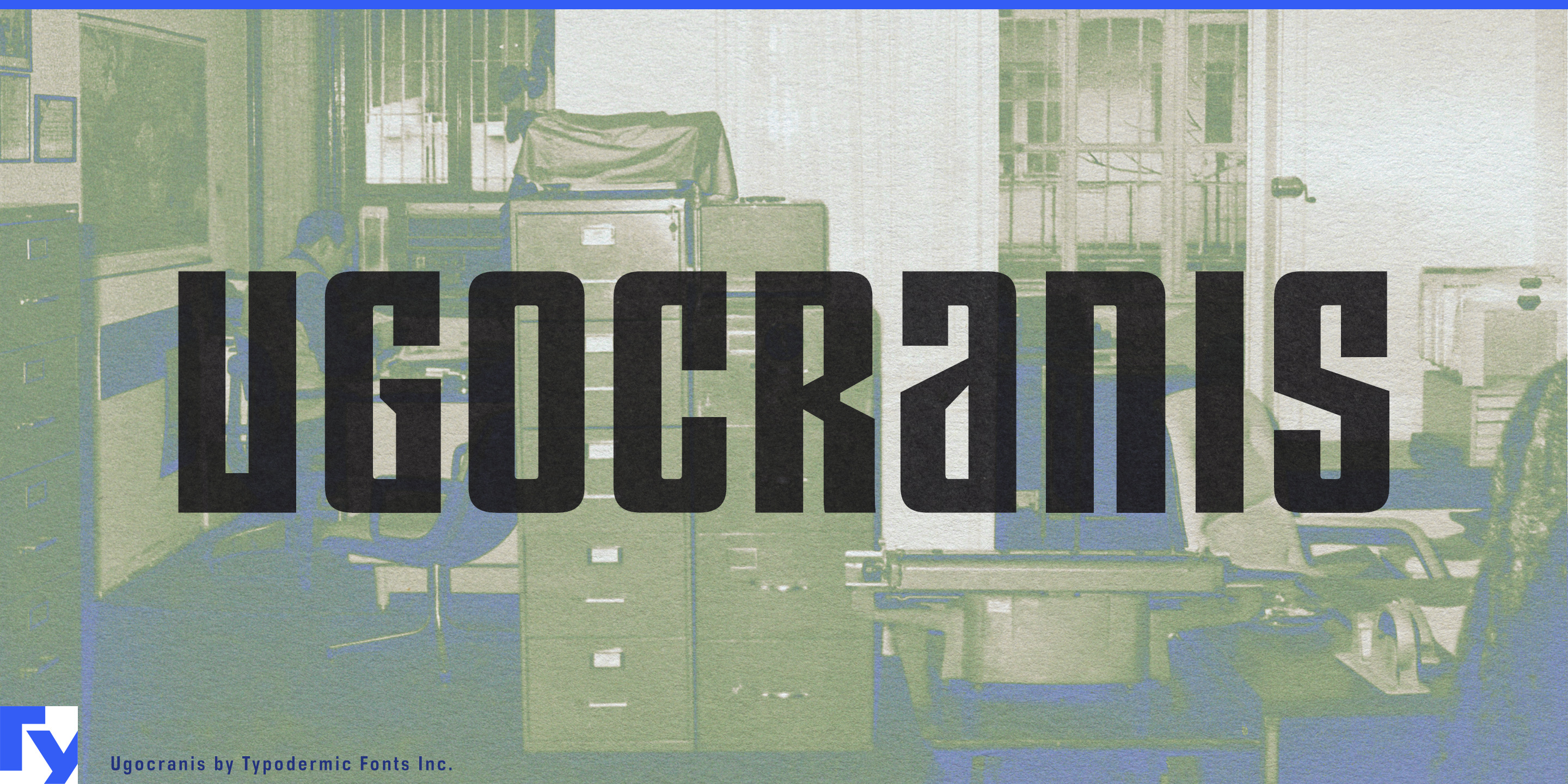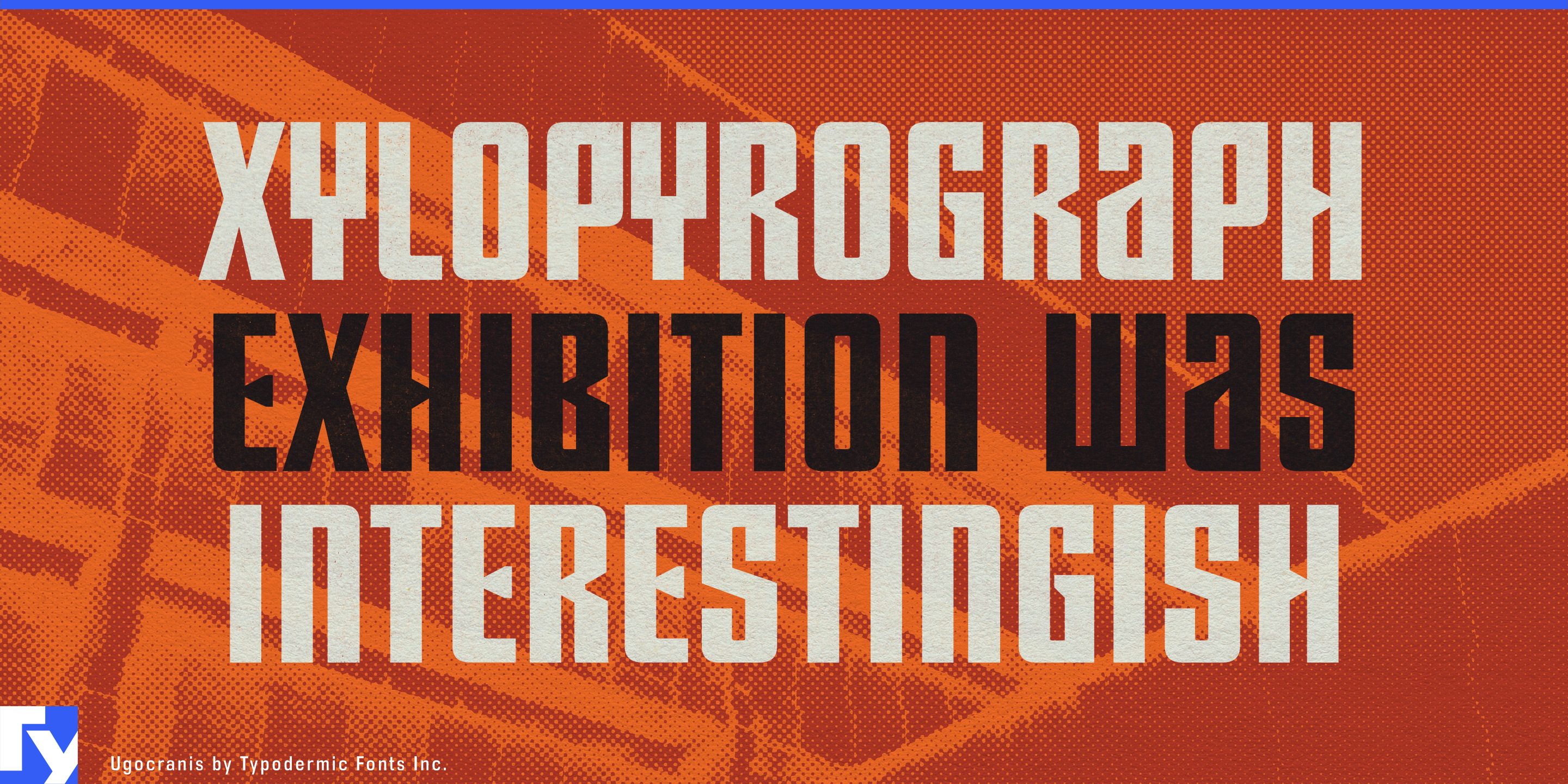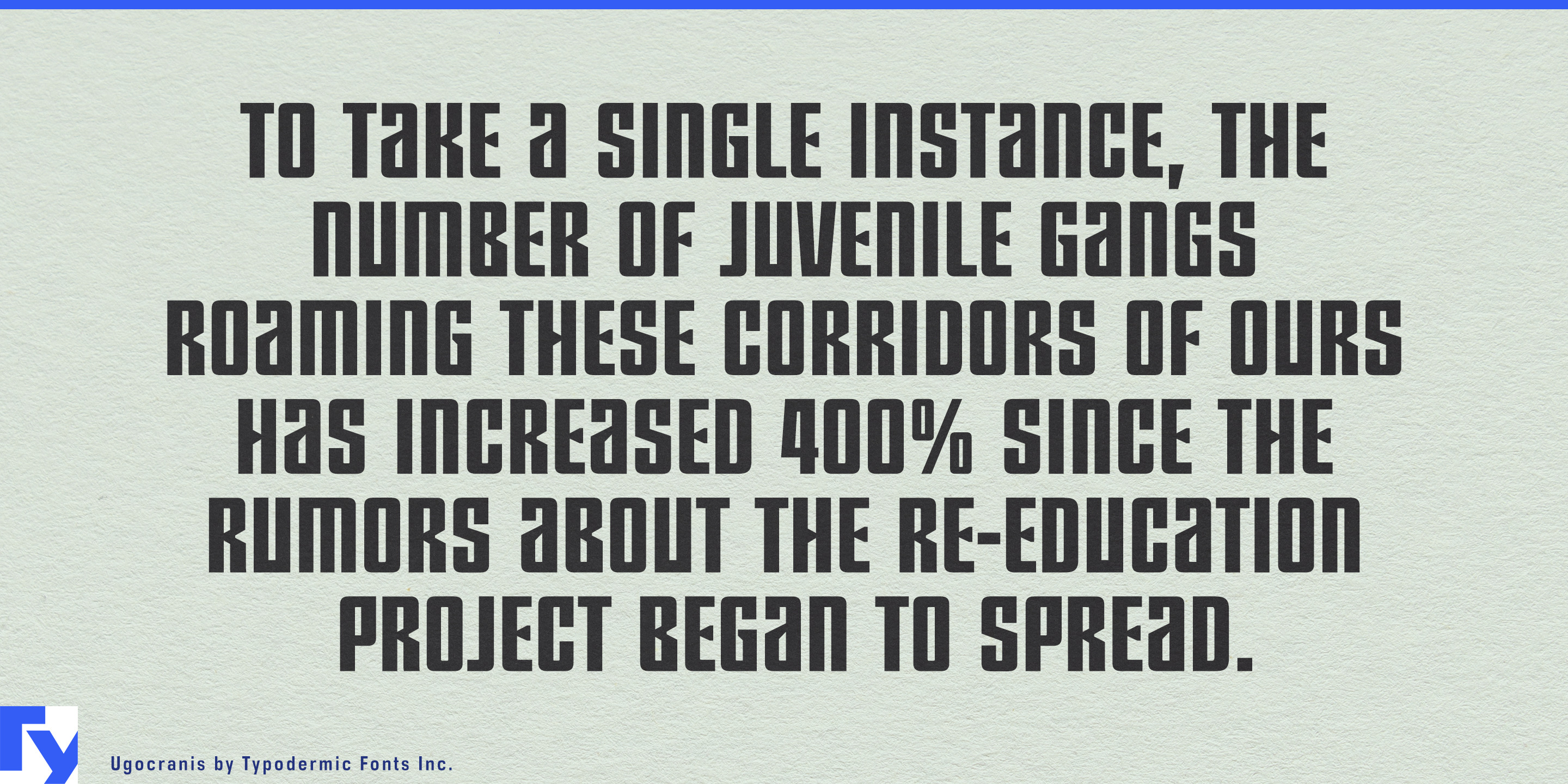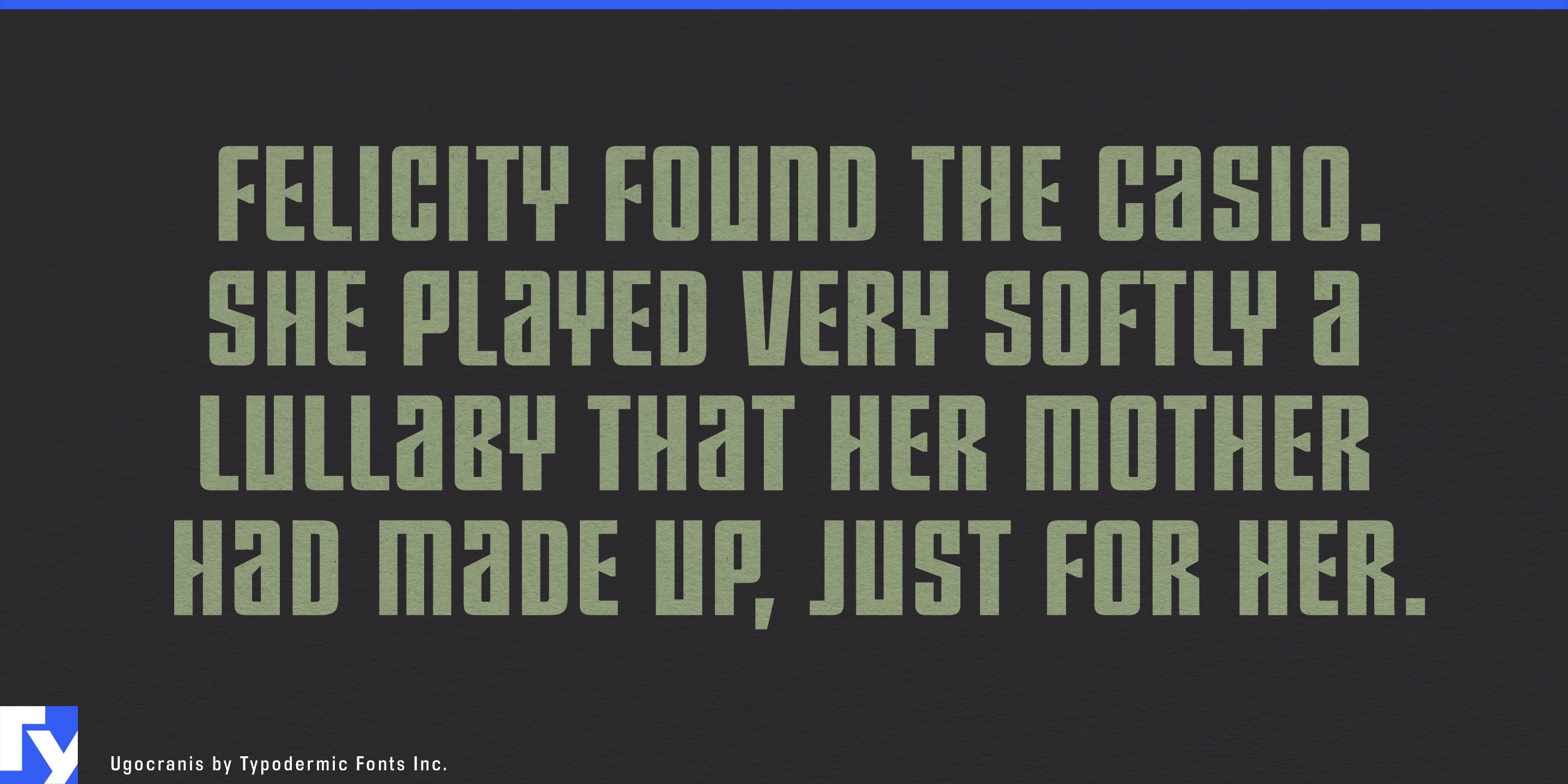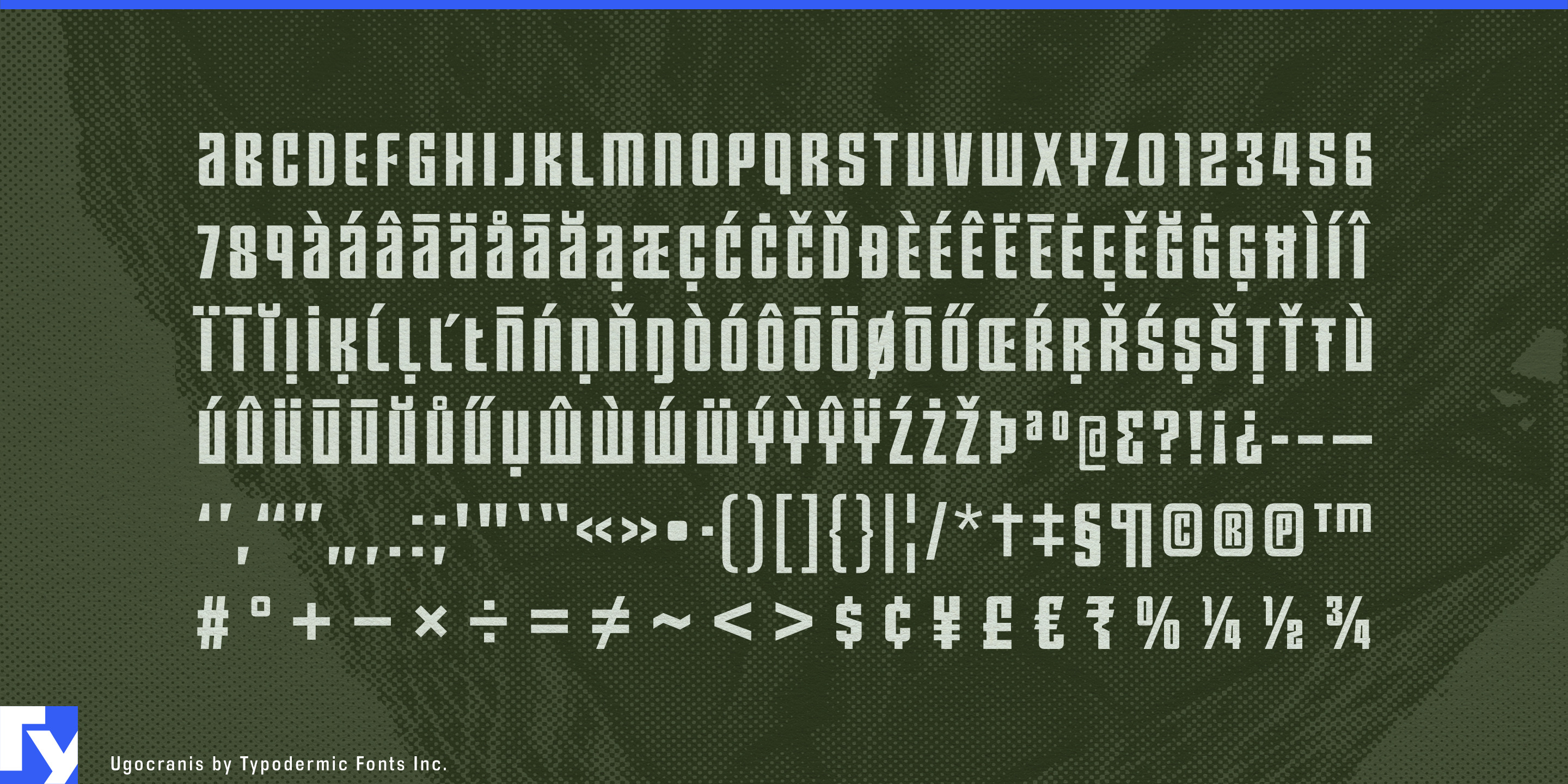
Ugocranis
Some projects do not need typography that promises excitement. A recycling plant, district-heating station, freight terminal, or municipal utility building may contain sophisticated technology, but sleek startup typography can feel strangely dishonest. Traditional industrial lettering creates a different problem: military stencils, heritage machinery, and rugged nostalgia can make new infrastructure look inherited from another era.
Ugocranis makes plainness intentional. Its narrow all-caps forms, uniform strokes, compact octagonal construction, and somber rhythm create a distinctly administrative kind of display lettering. There is enough geometry to keep it recognizable, but very little theatricality. It looks suited to organizations that operate facilities, process materials, move freight, and maintain systems rather than sell an imagined future.
Advanced recycling and material recovery are especially strong settings. Robotic sorting lines, battery-recovery plants, e-waste dismantling centers, critical-material processing, and automated recycling systems combine sophisticated technology with unapologetically industrial environments. Ugocranis can handle facility names, processing-zone headings, material-stream graphics, sorting-line identities, plant feature walls, and construction hoardings without making a recycling facility look like a consumer-electronics launch.
District heating and urban thermal infrastructure provide another natural fit. Large heat pumps, thermal-storage systems, energy centers, pumping stations, heat-exchanger facilities, and recovered-heat networks increasingly form part of city infrastructure. Ugocranis gives energy-center names, district-network projects, plant-wall lettering, public exhibition headings, and engineering graphics a civic, operational character.
Automated warehouses and freight terminals offer a similar environment at enormous scale. Fulfillment centers, cross-dock facilities, automated sorting halls, container terminals, and logistics campuses need names and zone headings that can occupy large industrial surfaces without turning every building into a technology showcase. Ugocranis suits loading-hall graphics, maintenance-area names, facility lettering, and distribution-center identities where the typography should feel systematic rather than promotional.
Public works broaden that role into water-reclamation plants, stormwater facilities, pumping stations, utility compounds, tunnel-service buildings, maintenance depots, and infrastructure operations centers. Remanufacturing and reverse logistics add EV battery refurbishment, industrial component recovery, electronics reuse, and parts-recovery operations.
Ugocranis also works well for bureaucratic world-building. Fictional ministries, housing authorities, state utilities, processing centers, records divisions, institutional corridors, and industrial colonies often need typography that looks standardized rather than spectacular.
Ugocranis is most useful when dullness itself is part of the message: infrastructure, utilities, processing facilities, and institutions whose credibility comes from appearing permanent, impersonal, and more concerned with getting the job done than looking exciting.